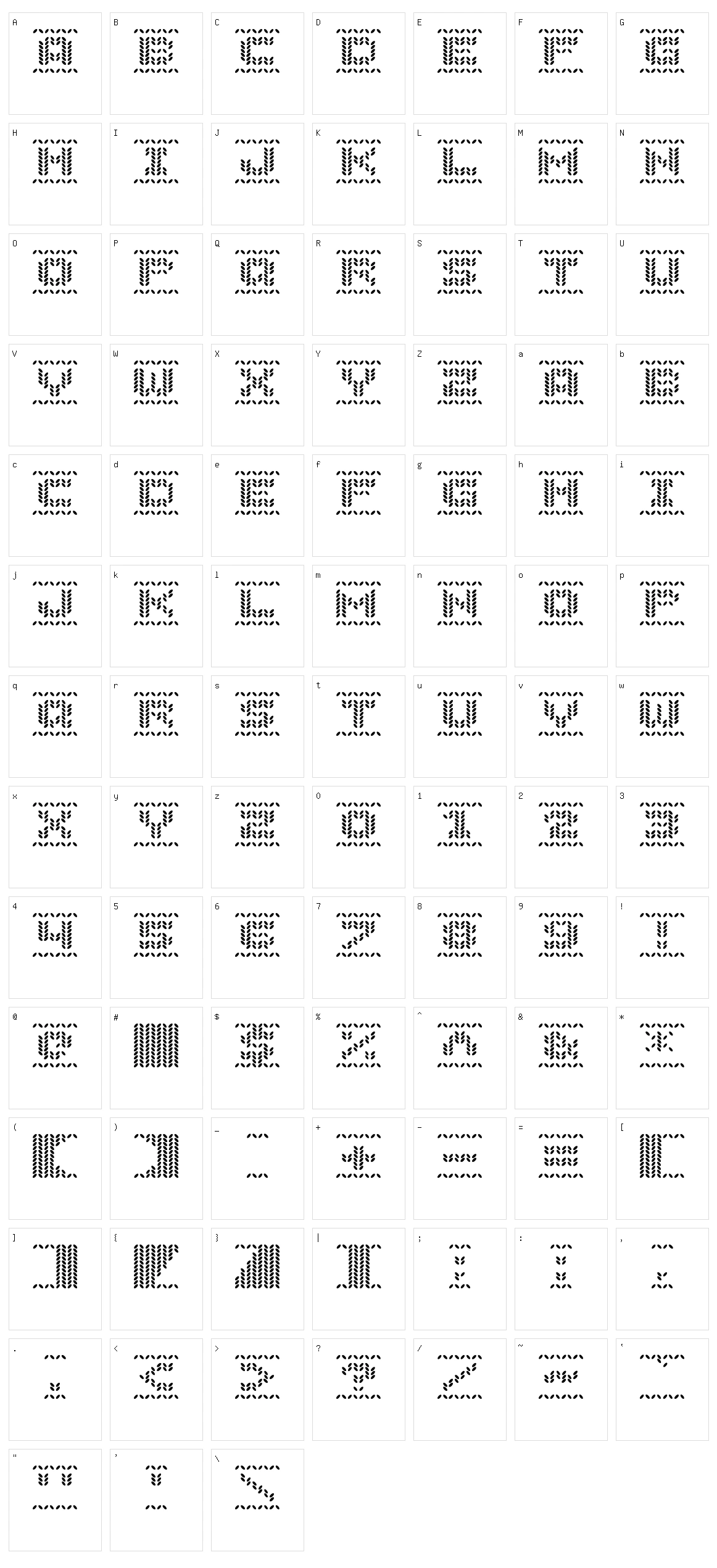
The free font Jolly Sweater is carefully designed by GGBotNet, showcasing a thoughtful balance of creativity and usability and falls under the Christmas font style. When you download the ZIP file, it contains only 155.22 KB of font files, making it lightweight and quick to download. Please review the license details below to understand permitted usage and distribution rights. If license information is not available, we recommend using this font for personal projects only or contacting the author directly for commercial usage permissions.